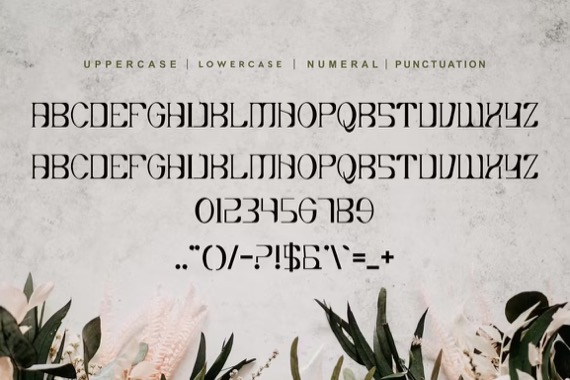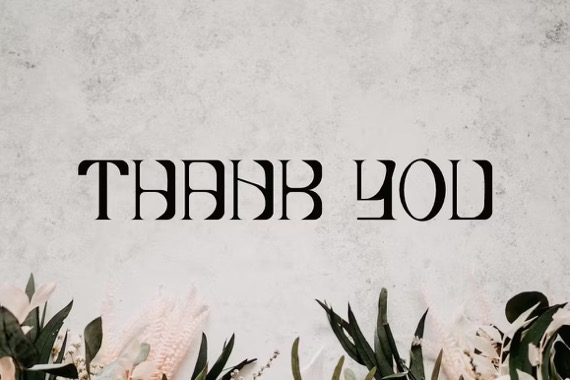
Queen Valentine Font is a classic and fancy display serif typeface. Ready to use for your designs, such as labeling, movie scene, poster, movie title, concerts, album covers, logos and much more.
Queen Valentine Display Serif Font